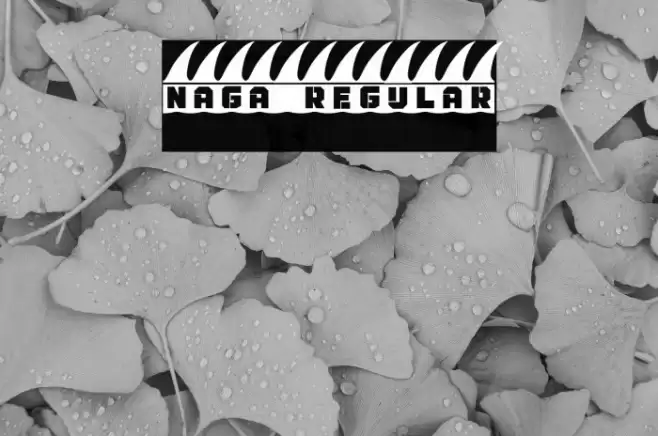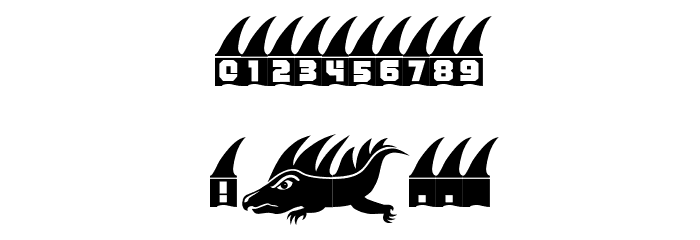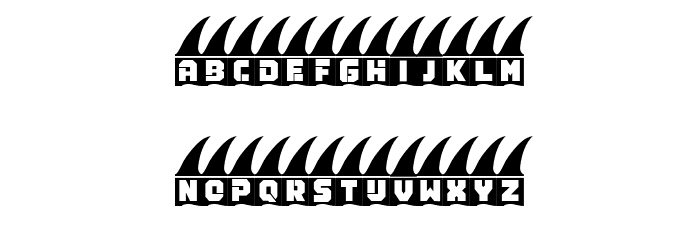
Naga Regular Font
Naga Regular Description
This font features a bold and striking design with each character adorned with a series of sharp, flame-like spikes extending from the top. The letters are blocky and geometric, creating a strong visual impact. The uppercase letters are consistent in height, while the numbers maintain the same bold style. The unique embellishments give the font a dynamic and aggressive appearance, making it ideal for attention-grabbing designs. The font's distinct style is reminiscent of tribal or fantasy themes, adding an element of intrigue and intensity to any project.
A bold, spiky font with a tribal and fantasy-inspired design from Fancy fonts.
- Proposed Projects: Ideal for fantasy-themed posters, video game titles, or branding that requires a bold and edgy look.
- Overall Style: Decorative
- Use Case: Headlines, Logos